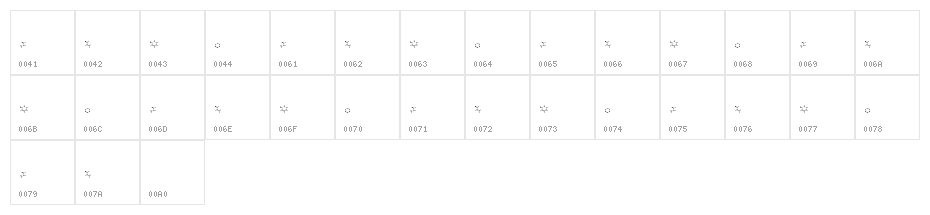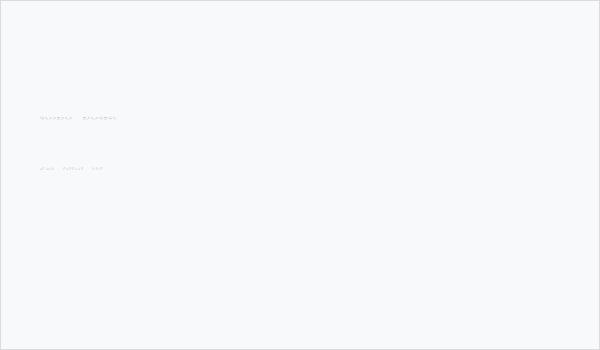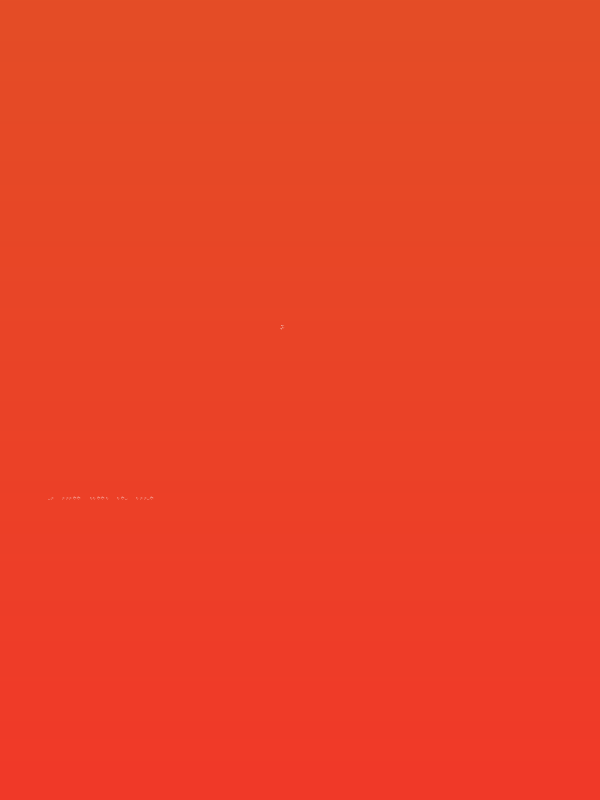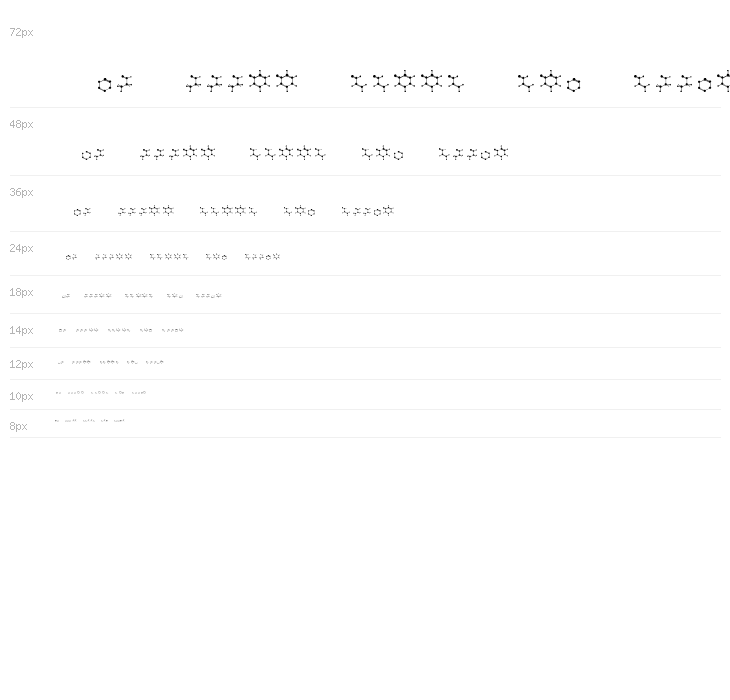
GEN'L Font
GEN'L Description
A highly decorative font where each character is constructed from molecular or chemical structure motifs, giving a scientific and playful appearance. The glyphs are composed of hexagonal rings with connecting lines, resembling benzene rings or molecular diagrams.
| Overall Style | Decorative, Scientific, Playful |
| Use Case | Logos, Headlines, Posters, Themed graphics |
| Proposed Projects | Science-themed posters, educational materials, chemistry event branding, playful scientific infographics. |